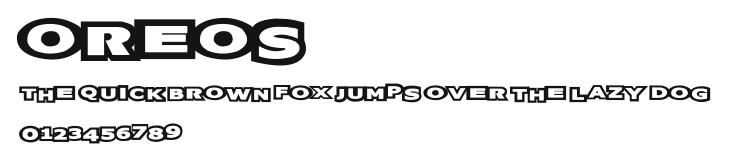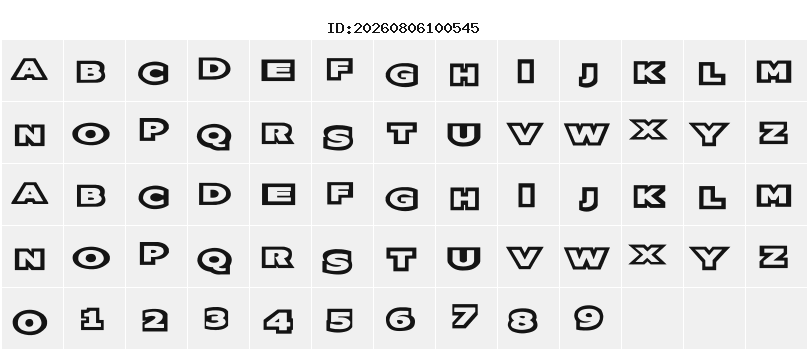
• Font Name: Oreos
• Font Style: Outline
• Full Font Name: Oreos
• Designer: High-Logic - Erwin Denissen 1999
About Oreos.ttf
Oreos.ttf is a modern, elegant sans-serif font designed for ultimate readability and visual harmony. Perfect for branding, headlines, web design, and print materials.